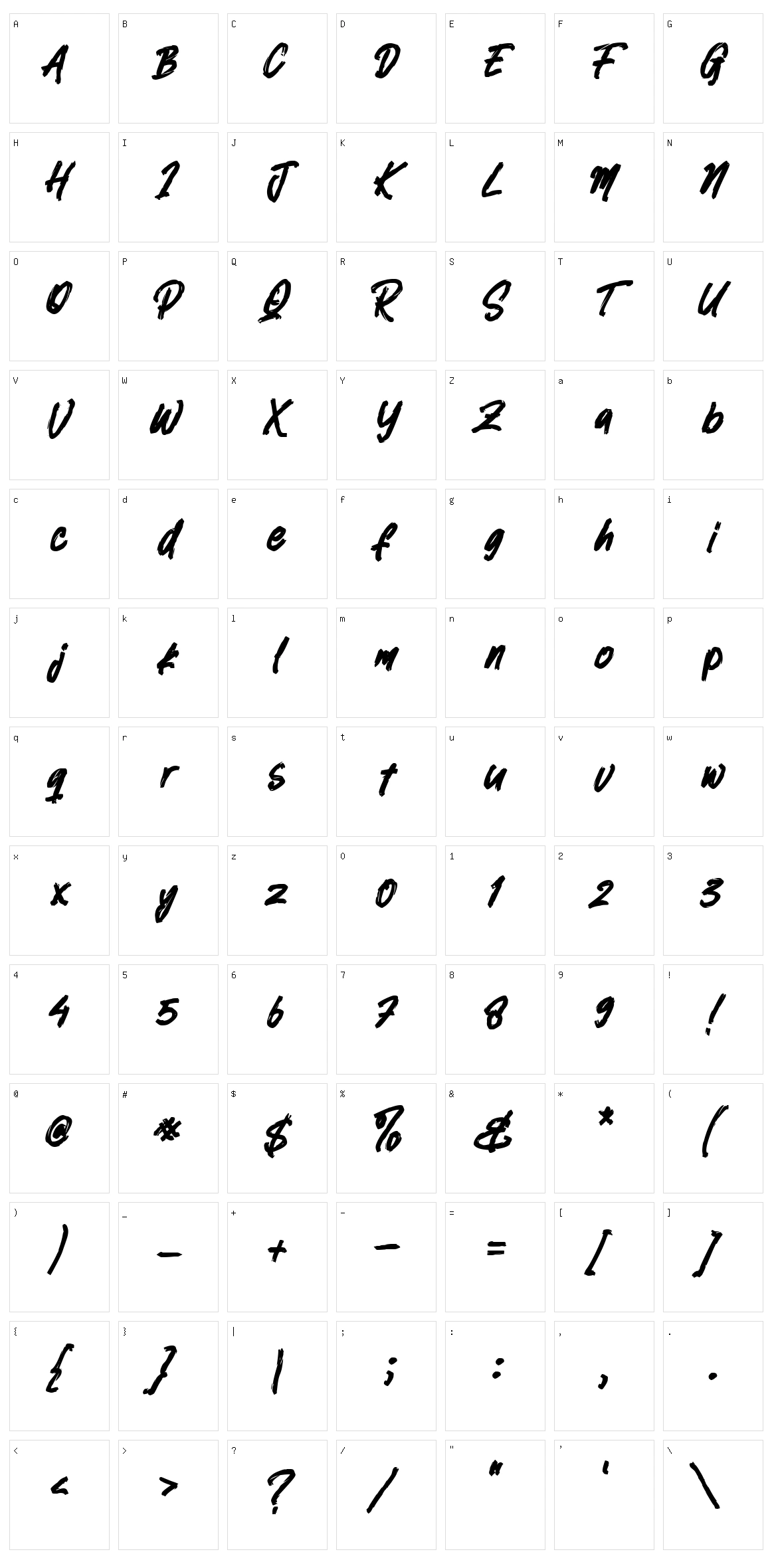
The free font Silent Woods is carefully designed by Colllab Studio, showcasing a thoughtful balance of creativity and usability and falls under the Halloween font style. When you download the ZIP file, it contains only 112.91 KB of font files, making it lightweight and quick to download. Please review the license details below to understand permitted usage and distribution rights. If license information is not available, we recommend using this font for personal projects only or contacting the author directly for commercial usage permissions.